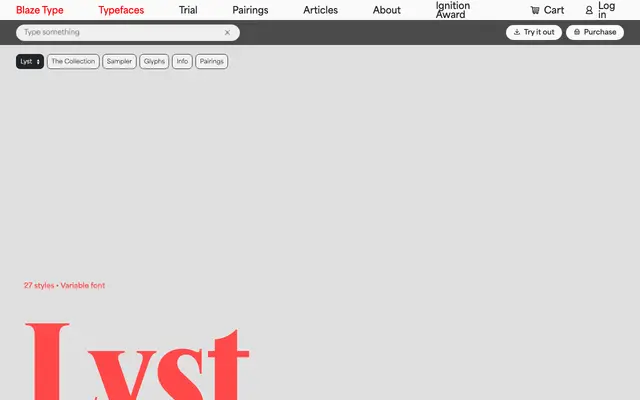
A condensed serif with narrow proportions and a disciplined vertical rhythm, drawing loosely on the editorial atmosphere of late 20th-century print.
Built from the observation of mechanically condensed Times New Roman in everyday print, Lyst treats that compression not as a defect but as a formal starting point. The 27 styles span nine weights with Roman, true Italic and Slanted cuts, the latter set at a precise 10° angle to mirror the conceptual logic of mechanical inclination. The result sits somewhere between corporate clarity and magazine sophistication without committing firmly to either.
Explicitly described as a condensed serif drawing on the editorial serif tradition of the late 20th century, with narrow proportions and vertical tension; the initial conceptual spark was mechanically condensed Times New Roman.